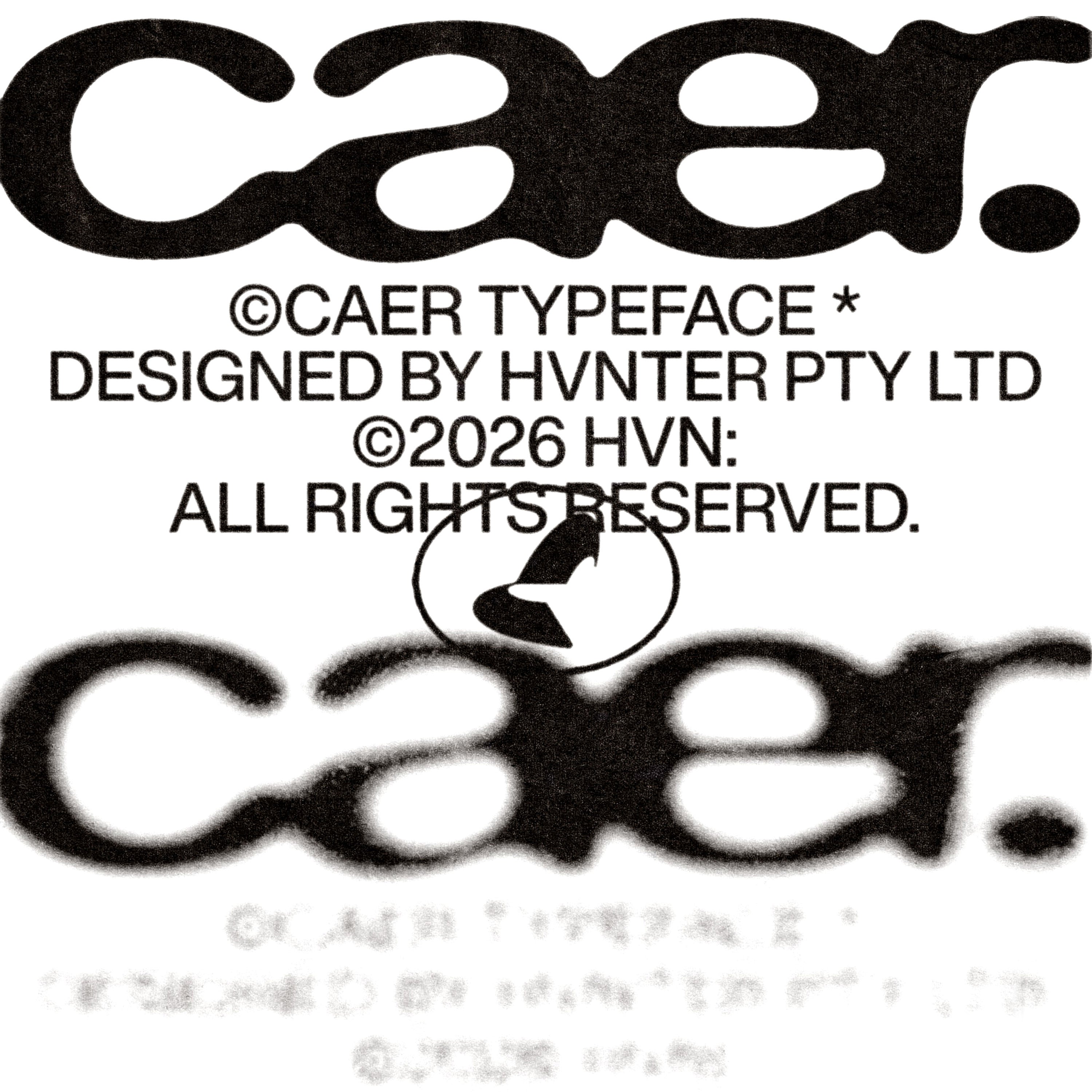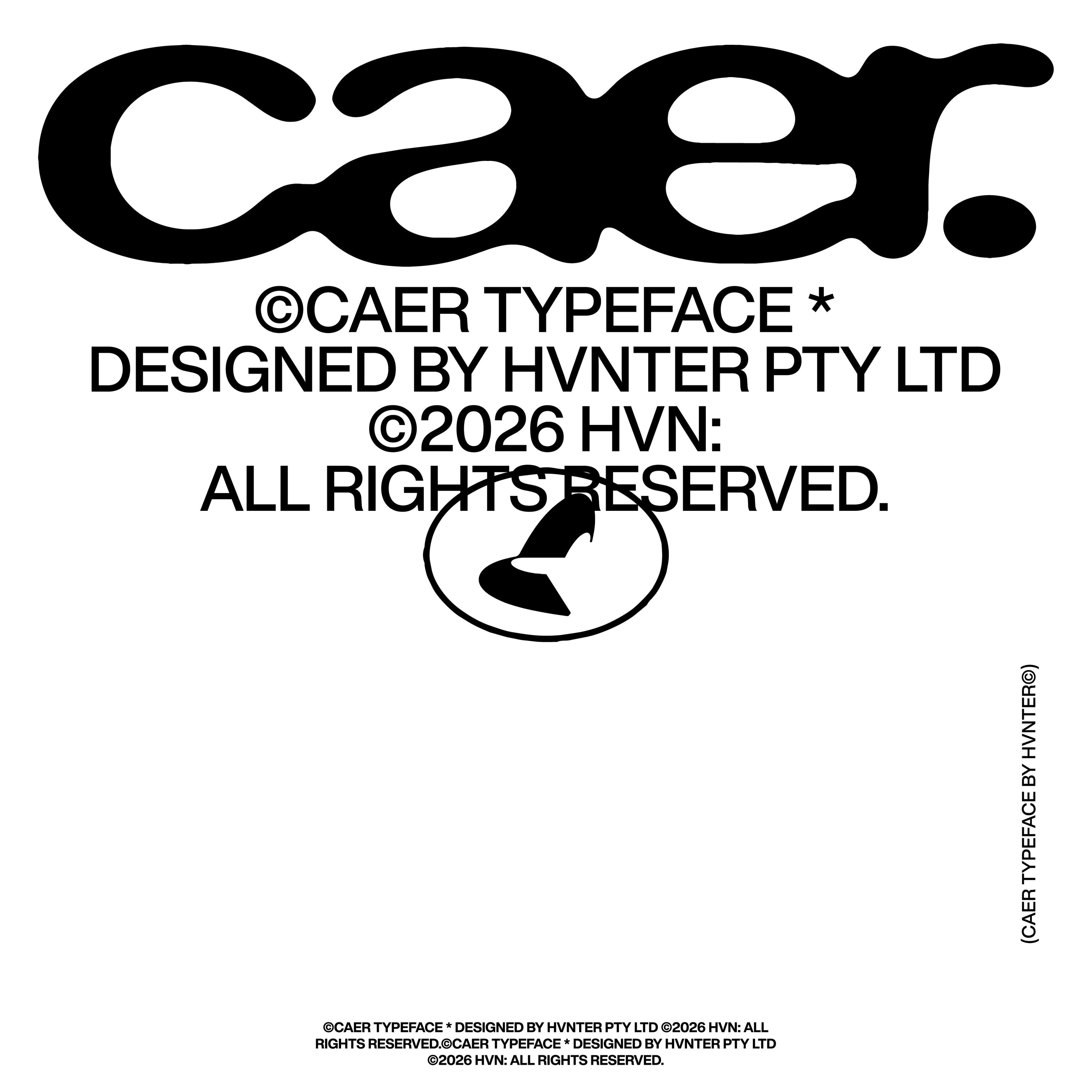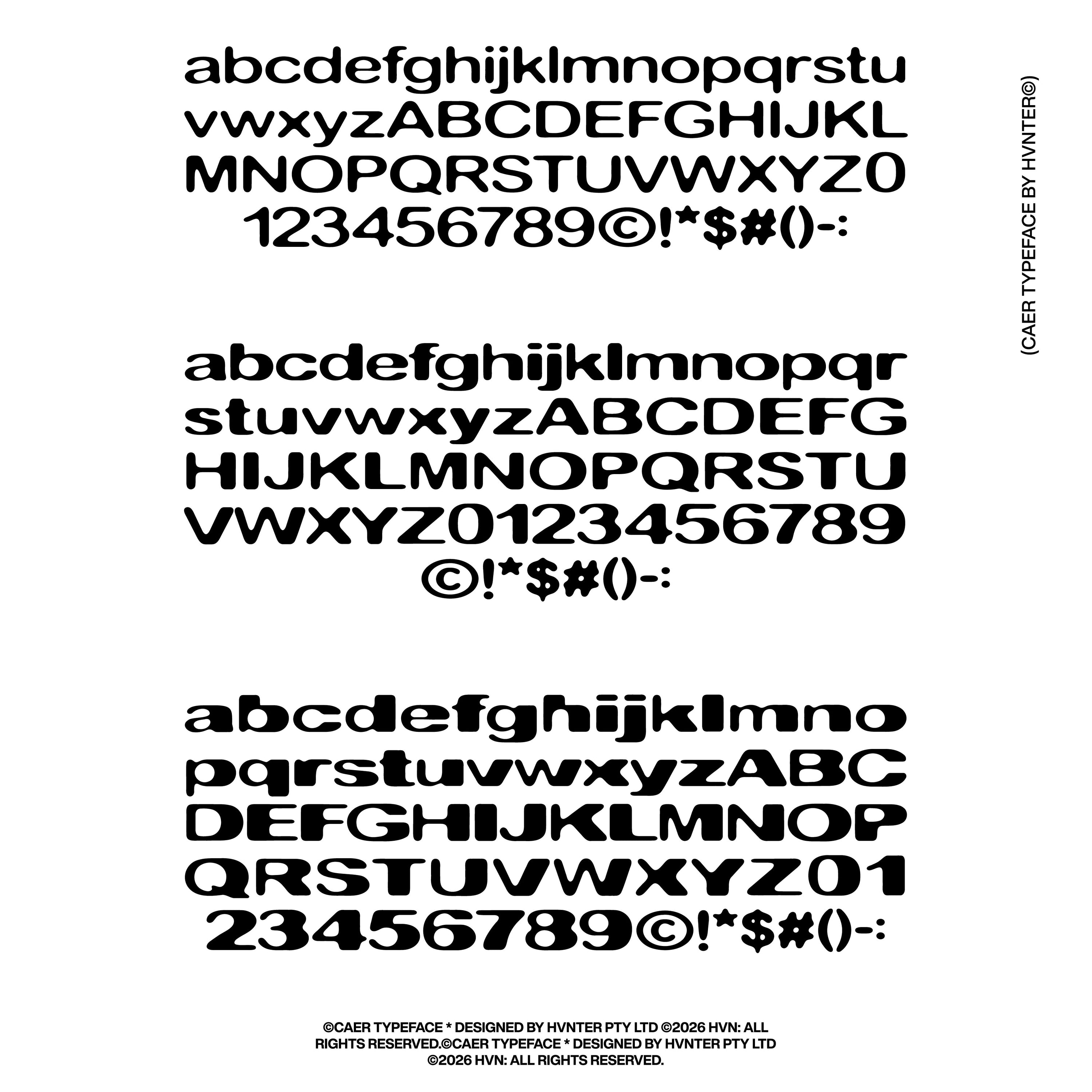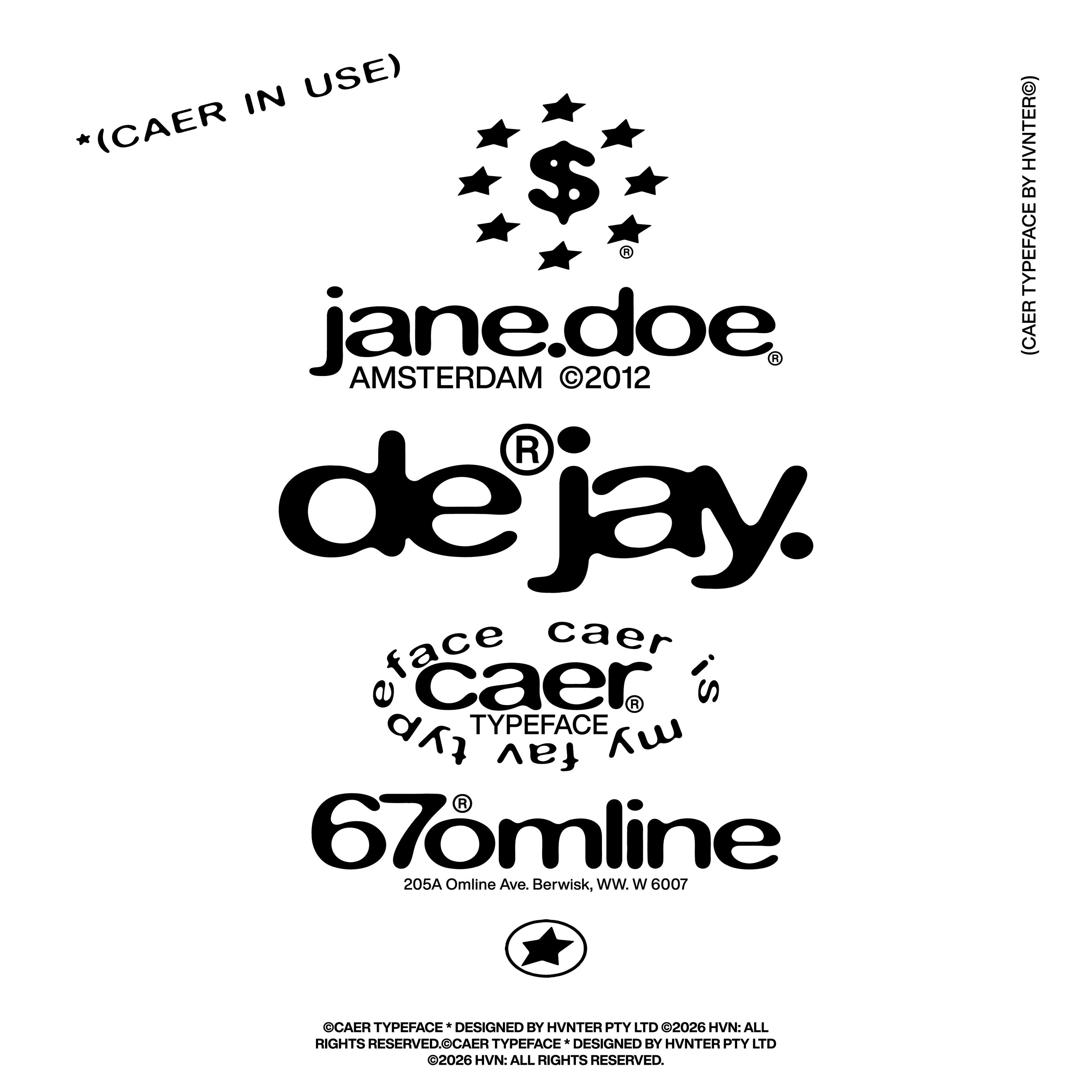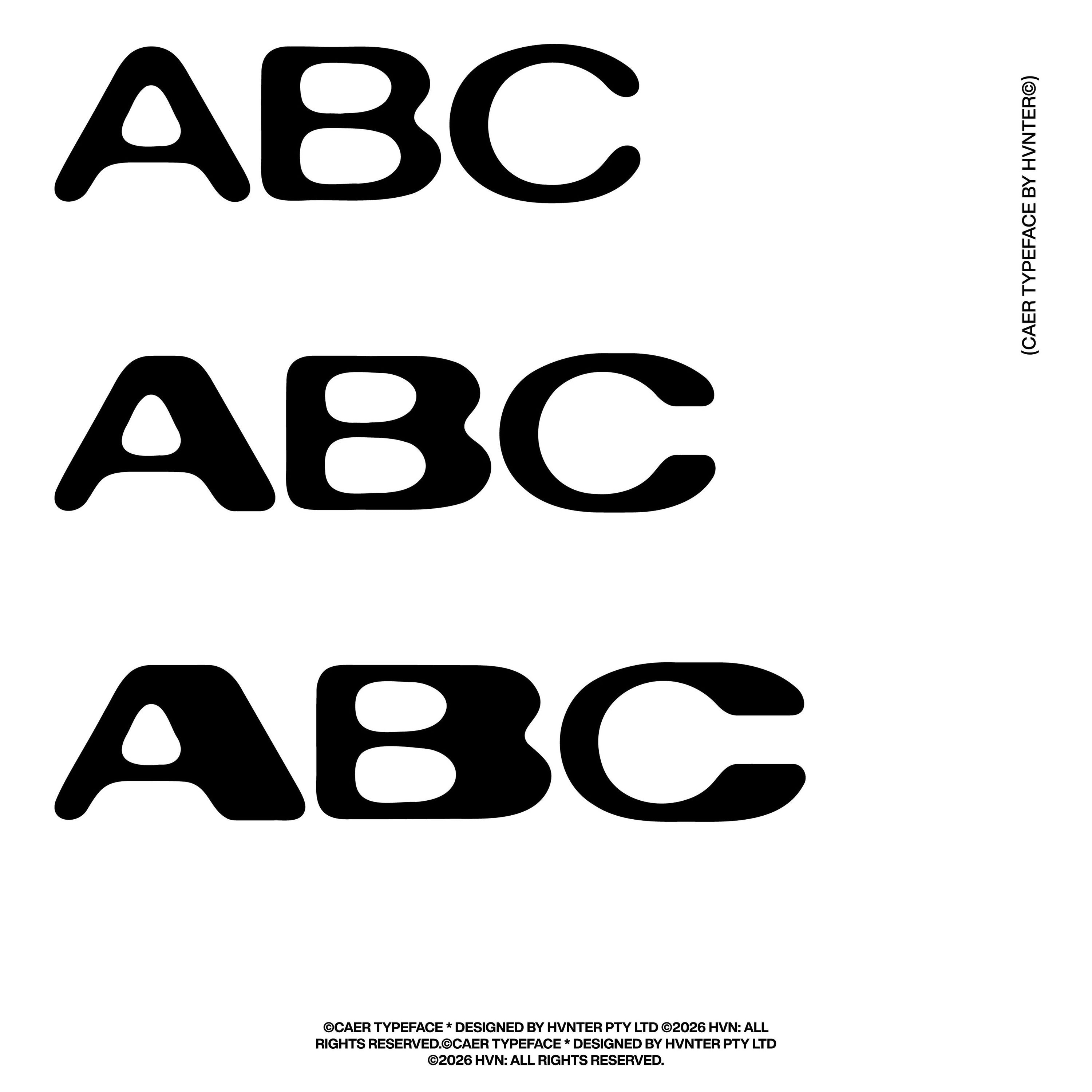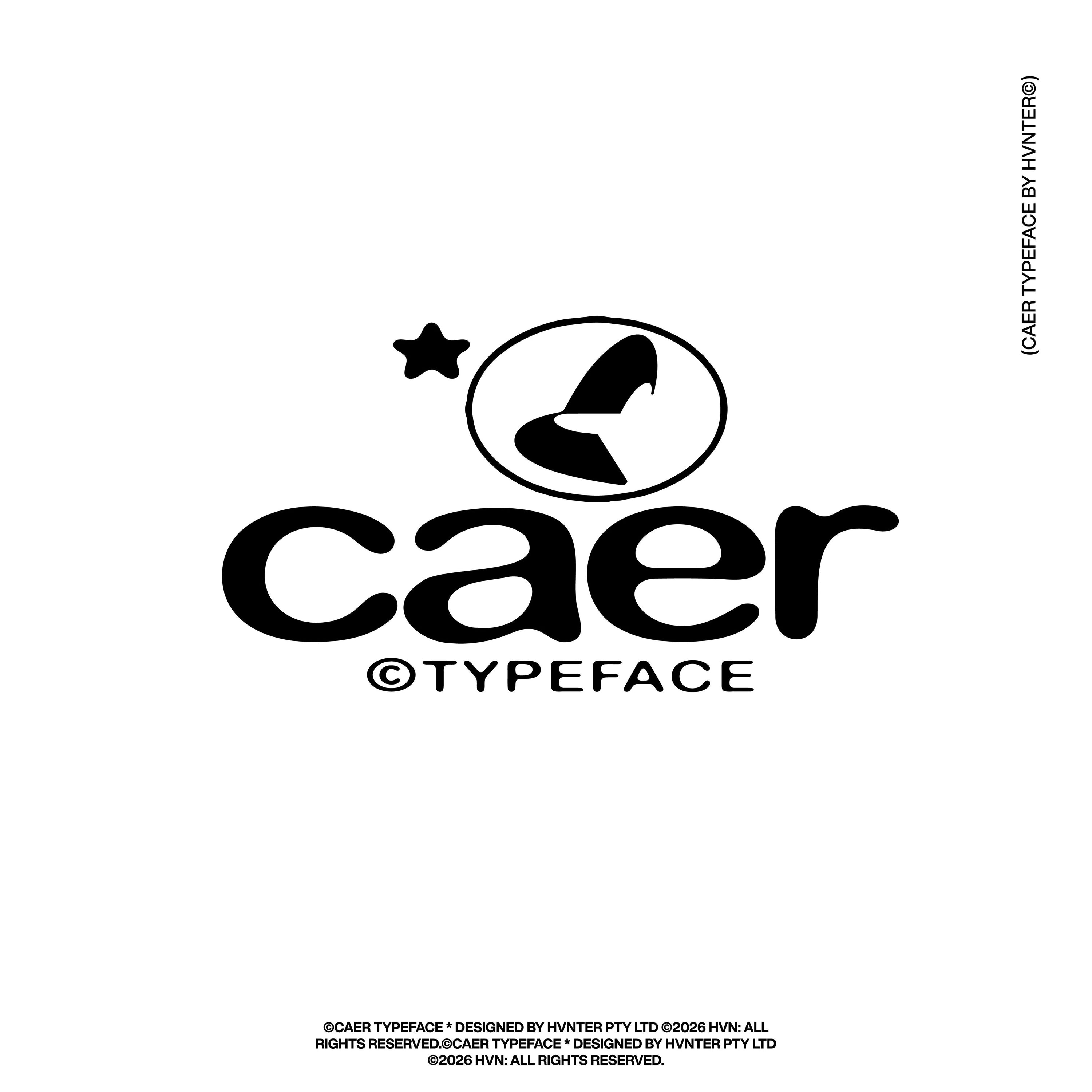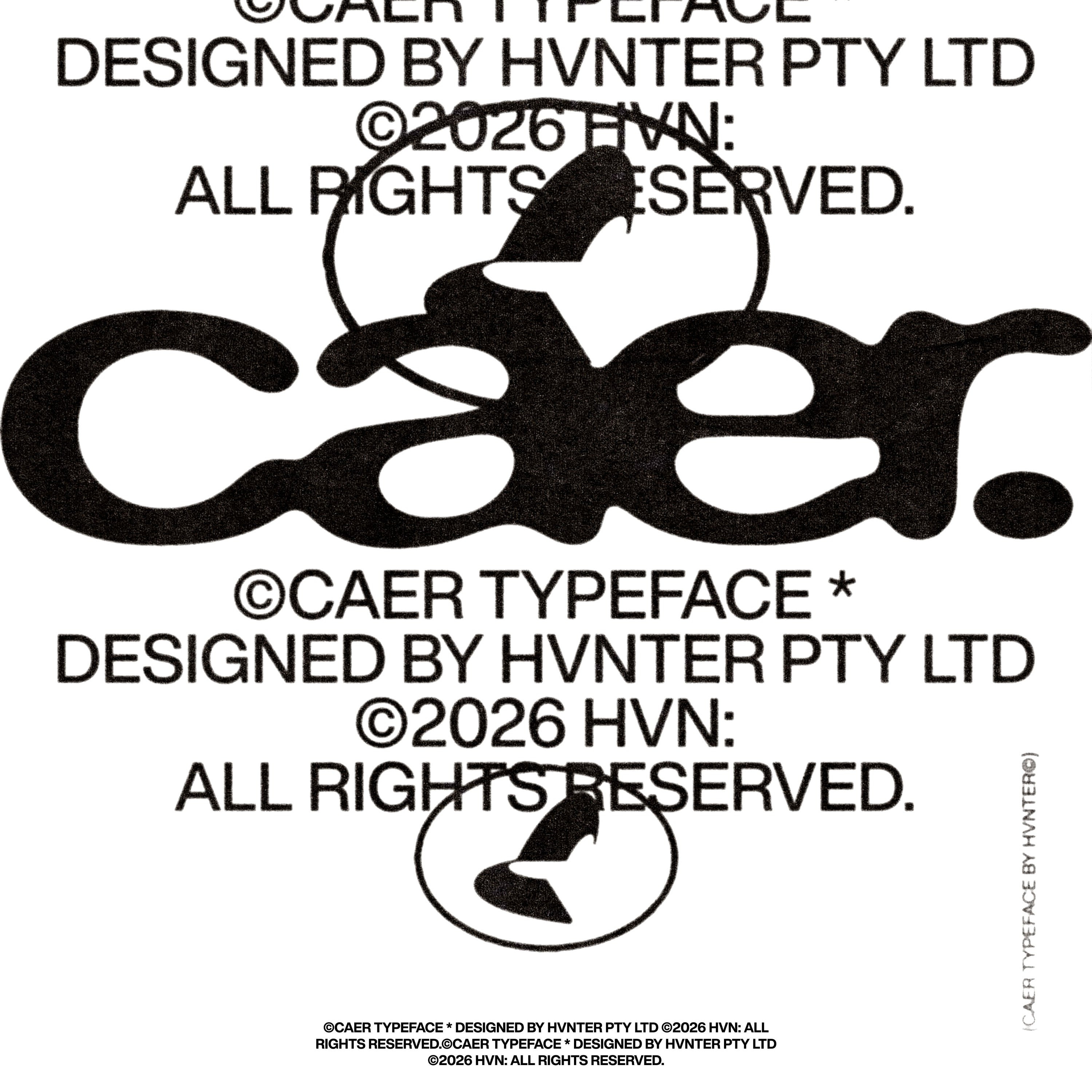
caer Typeface
caer Typeface is a bold rounded sans serif. Built around soft, inflated terminals and generous stroke weights, each letterform carries a strong visual presence that works equally well in wordmarks, logo lockups, and large-format headline use.
The typeface comes in three weights, giving you genuine range within a single consistent system — from a lighter weight with clean legibility for supporting type, to a heavy display weight that dominates any composition it enters. The rounded terminals stay true across every weight, maintaining a cohesive and immediately recognizable character throughout.
caer is built for designers working in streetwear, brand identity, poster design, packaging, and editorial — anywhere a bold, approachable typeface needs to hold its own without extra effort. The full character set covers uppercase, lowercase, numbers, and essential punctuation, making it ready to use straight out of the box.